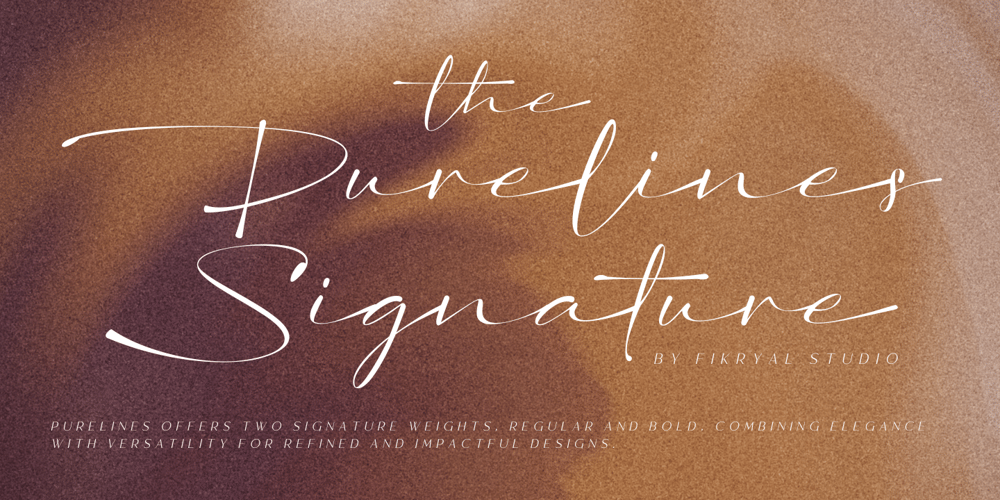
The Purelines Signature
The Purelines Signature font
The Purelines Signature Font Family was designed by Muhammad Fikry and published by Fikryal. The Purelines Signature contains 2 styles and family package options. The Purelines Signature is a luxurious, signature font designed to bring elegance and versatility to your projects. Featuring two carefully crafted weights — Regular and Bold — this font offers refined sophistication, perfect for upscale branding, invitations, and editorial layouts. Purelines’ smooth, flowing strokes add a timeless touch to any design, making it an ideal choice for creatives seeking elegance with impact.Elevate your work with Purelines and capture the essence of modern luxury.If you have any questions please don’t hesitate to contact mefollow my Instagram: fkryallThank you